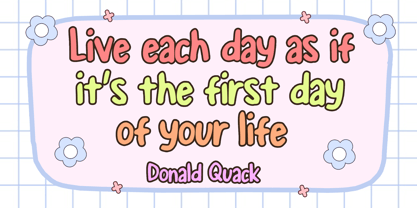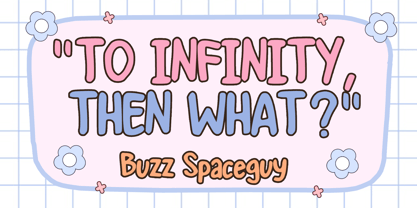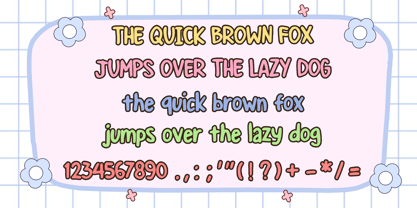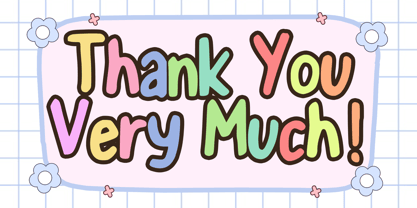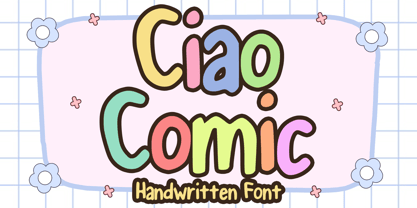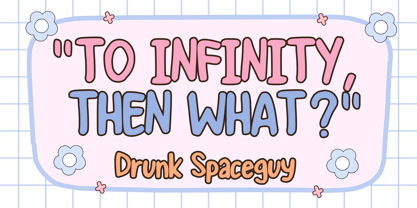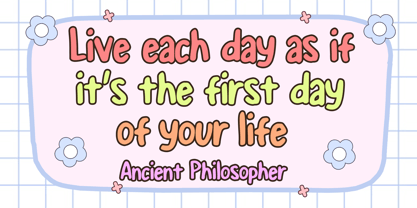
Ciao Comic
von Mvmet
Die Schriftfamilie Ciao Comic wurde von Gabriel Valentinus entworfen und von Mvmet veröffentlicht. Ciao Comic enthält 1 Stile. Mehr über diese Familie
Ciao Comic is a fun and playful comic font, suitable for kids themed designs and more. It will elevate a wide range of design projects to the highest level. You can use this font for many design ideas such as stickers, t-shirt designs, amazing logo designs, magazine or book covers, comics, cartoon drawings, daily typing, and many more. This font will add a super cool touch to your designs!
Designer: Gabriel Valentinus